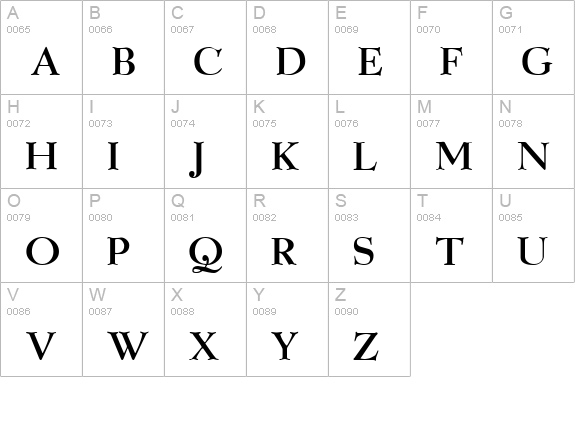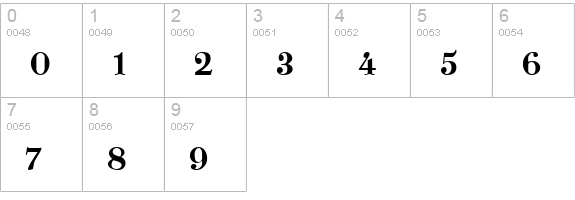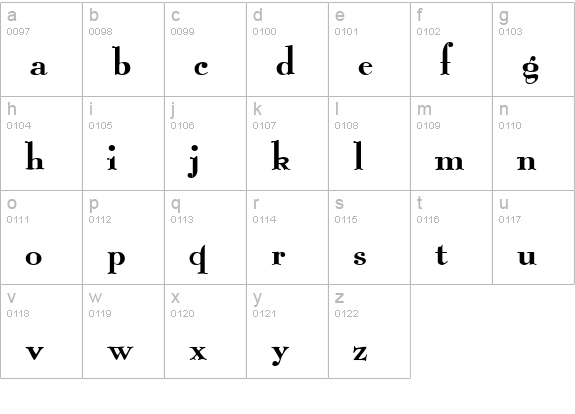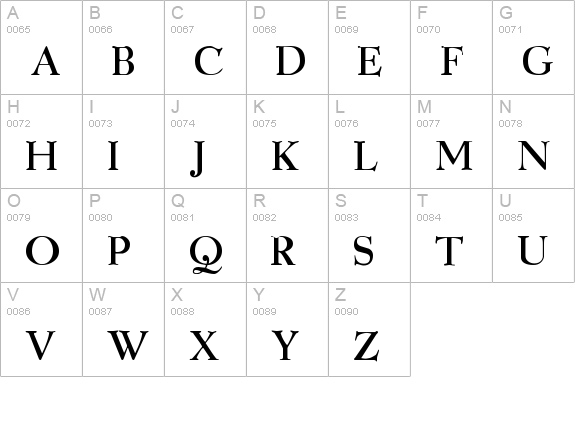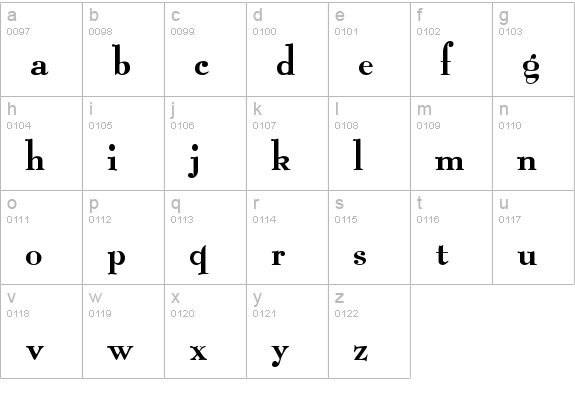
GrailLight Regular is the standard, neutral variant in the GrailLight typeface family \xE2\x80\x94 well suited to general body text, paragraphs, and standard typographic work.
GrailLight Regular is a modern and stylish typeface that exudes elegance and sophistication. With its clean lines and balanced proportions, this font is perfect for a wide range of design projects, from branding to editorial work. The versatile nature of GrailLight Regular makes it a go-to choice for designers looking to add a touch of sophistication to their projects. Best of all, GrailLight Regular is available for free download at FontsMarket.com. This means that you can access this high-quality font at no cost, making it a valuable addition to your font library. Whether you are a professional designer or a hobbyist looking to elevate your projects, GrailLight Regular is sure to impress with its timeless appeal and impeccable design. Download it today and see for yourself the impact this font can have on your work.